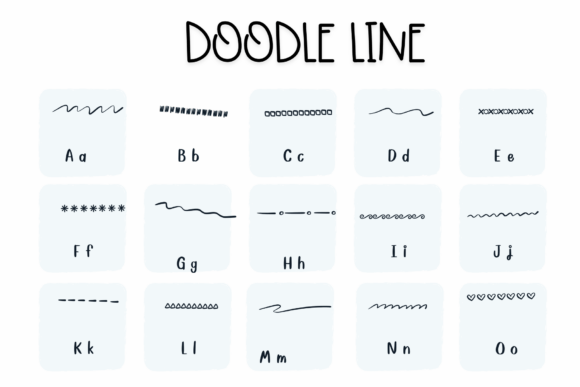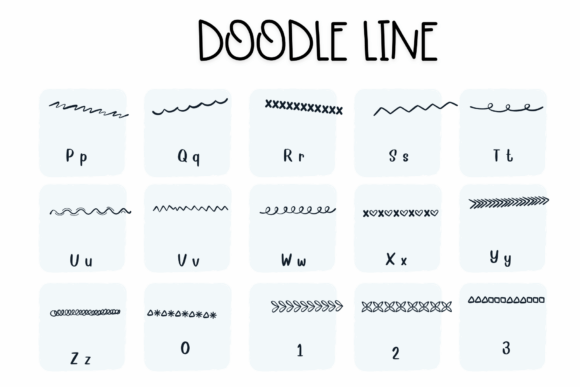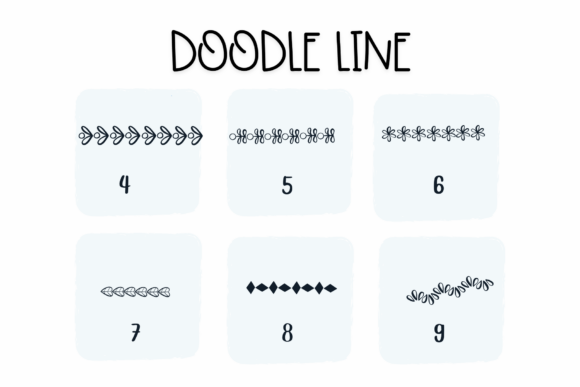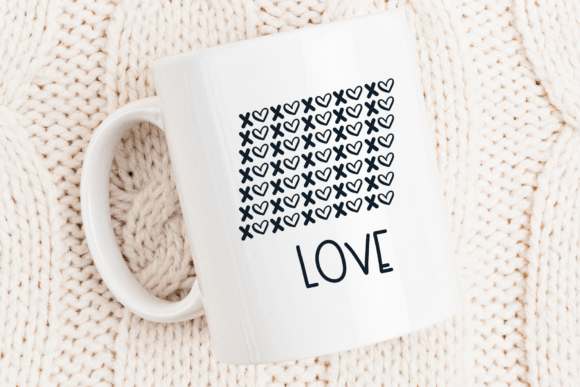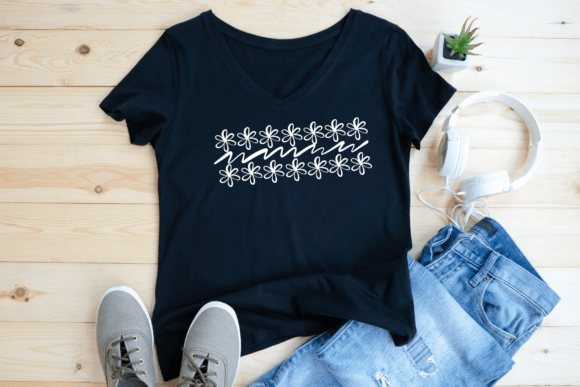
The Doodle Line Font: A Sketched Gem for Creative Projects
I still remember the time I was working on a wedding invitation project, and my client asked me to create a custom design that would reflect their playful and artistic personalities. As I was brainstorming ideas, I realized that I needed a font that would add a touch of whimsy and hand-drawn charm to the design. That’s when I stumbled upon the Doodle Line font, a dingbats font with a sketched style that perfectly captured the essence of my client’s vision.
I’ve had the pleasure of working with the Doodle Line font on several projects, and here’s what I think:
- ✨ The font’s sketched style adds a unique and playful touch to any design.
- ✅ It’s incredibly versatile and can be used for a wide range of creative projects, from wedding invitations to DIY crafts and decorations.
- 💡 The font’s dingbats style makes it perfect for adding visual interest to logos, icons, and other graphical elements.
However, I do have to mention a few quirks:
- 🤔 Some of the glyphs can be a bit inconsistent in terms of size and spacing, which may require some manual adjustments.
- ⚠️ The font may not be the best choice for body text or long paragraphs, as it can be a bit distracting and hard to read.
The Story Behind Doodle Line
The Doodle Line font was created by a talented designer who wanted to capture the essence of hand-drawn art in a digital font. Inspired by the doodles and sketches of her childhood, she crafted a font that would bring a touch of whimsy and playfulness to any design. With its unique sketched style and dingbats approach, Doodle Line has become a favorite among designers and crafters alike.
| Font Name | Doodle Line Font |
| Author | Sirinart |
| What is the Doodle Line font best used for? | The Doodle Line font is best used for creative projects such as wedding invitations, DIY crafts, decorations, logos, and other visual elements that require a playful and hand-drawn touch. |
| Is the Doodle Line font suitable for body text? | No, the Doodle Line font is not recommended for body text or long paragraphs, as it can be distracting and hard to read. |